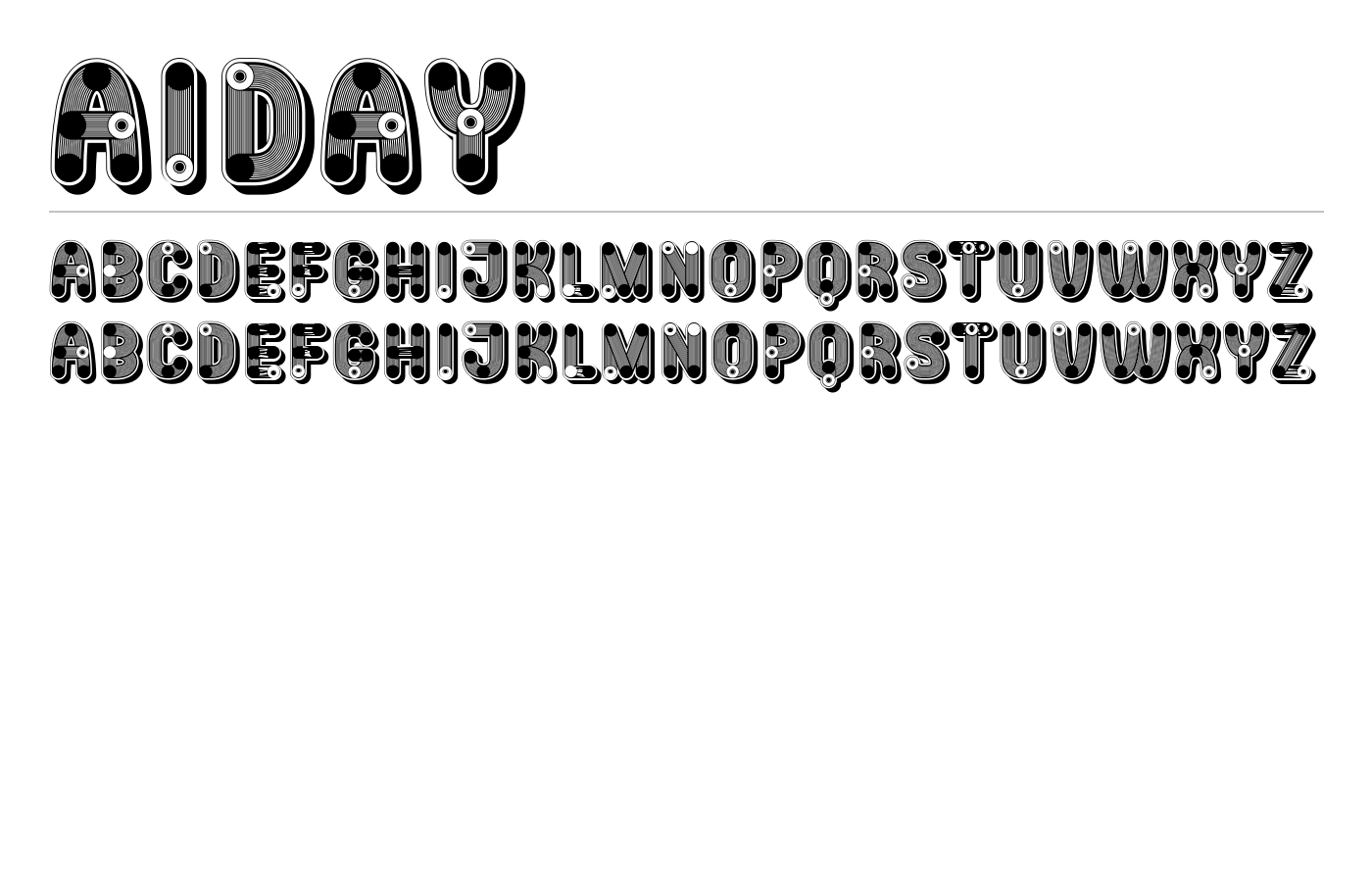
Aiday is a bold and playful display font featuring soft, rounded letterforms filled with intricate line patterns and circular accents that create a dynamic, layered look. Its whimsical design makes it perfect for eye-catching headlines, logos, and creative projects that need a fun, modern vibe with a unique, artistic twist. This font stands out in branding, posters, and editorial work where a stylish and energetic personality is desired.
Aiday Font
About Aiday Font